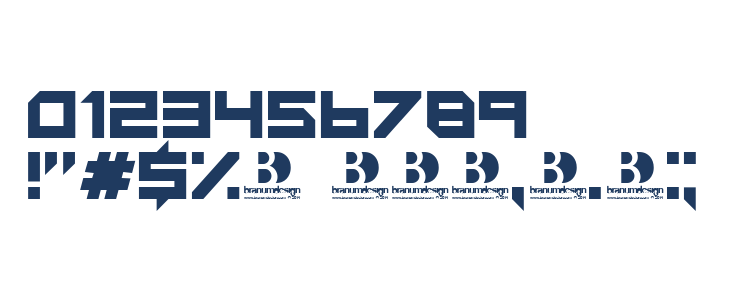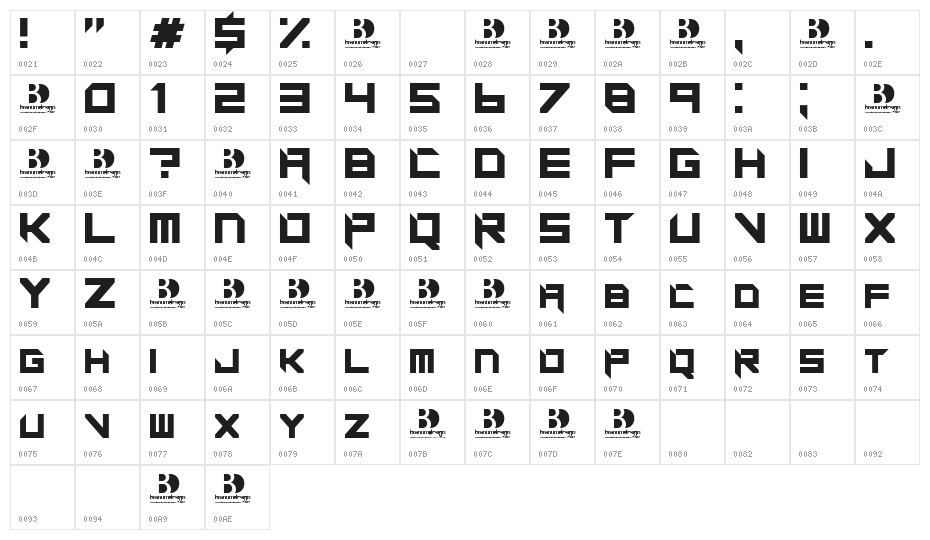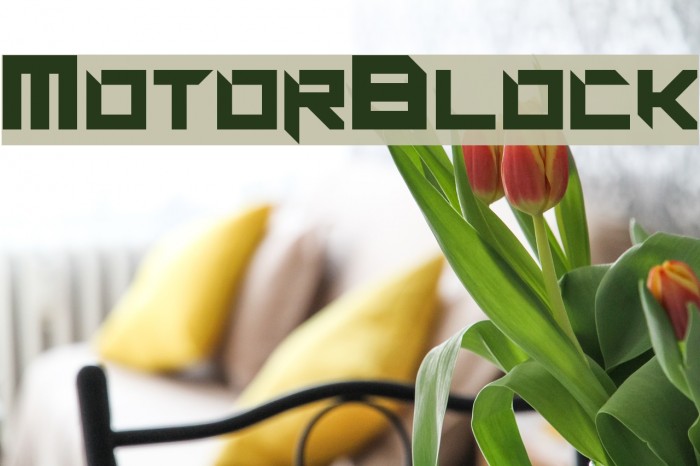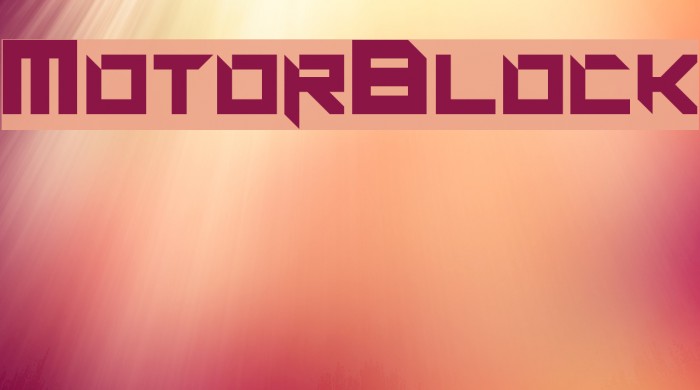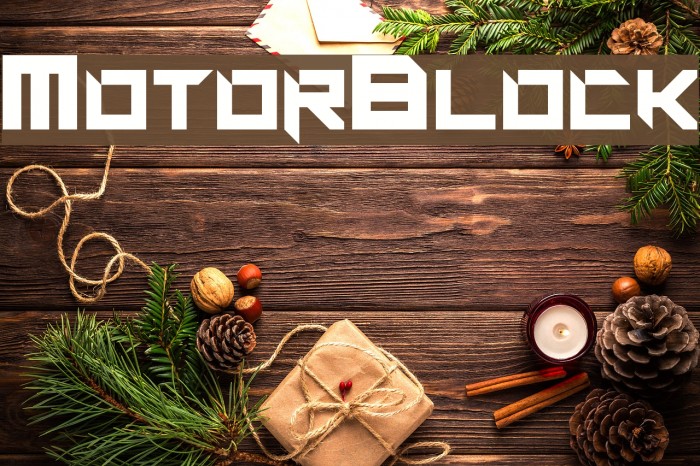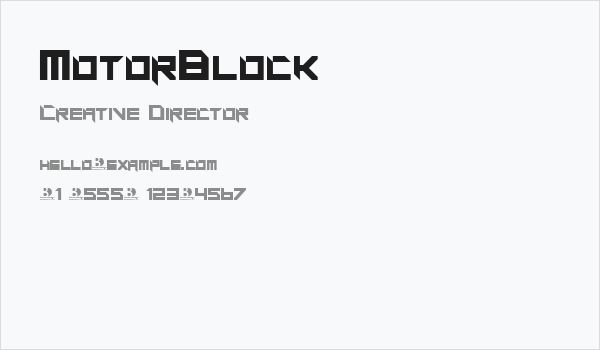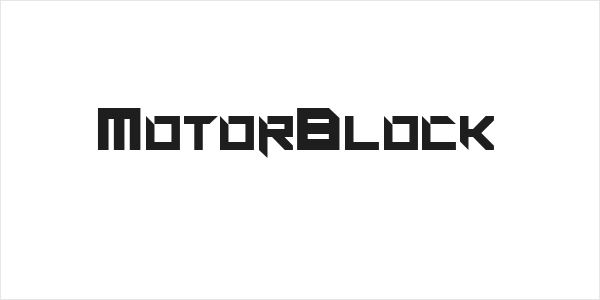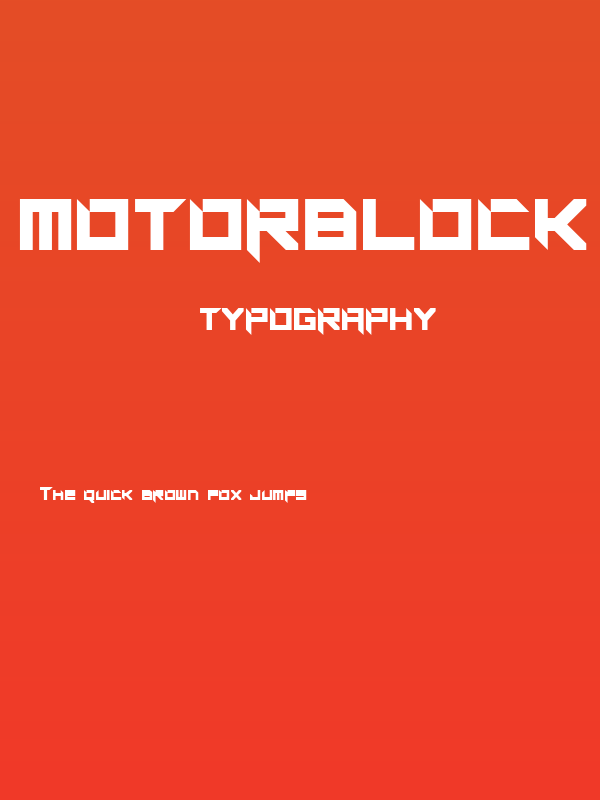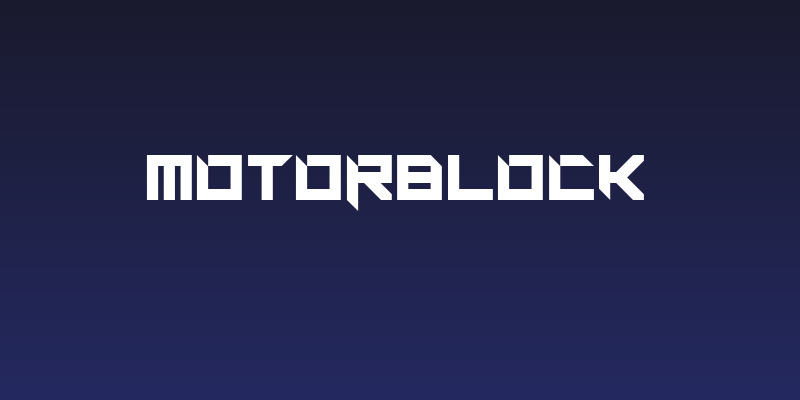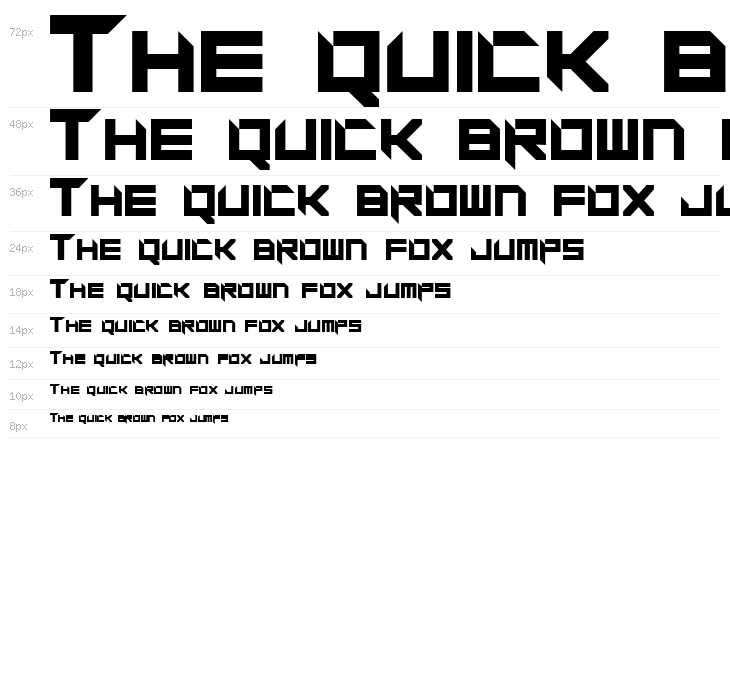
MotorBlock Font
MotorBlock Description
This font features a bold, geometric design with sharp angles and a futuristic aesthetic. The characters are constructed with straight lines and angular cuts, giving them a mechanical and industrial feel. The uppercase and lowercase letters maintain a consistent style, with the lowercase mirroring the uppercase in form. The numbers follow the same design principles, ensuring uniformity across all characters. Special characters are included, maintaining the same bold and angular style. This font is ideal for projects that require a strong, modern, and edgy look.
| Use Case | Logos, Headlines, Posters |
| Proposed Projects | Ideal for branding, logos, posters, and any project needing a modern, edgy aesthetic. |